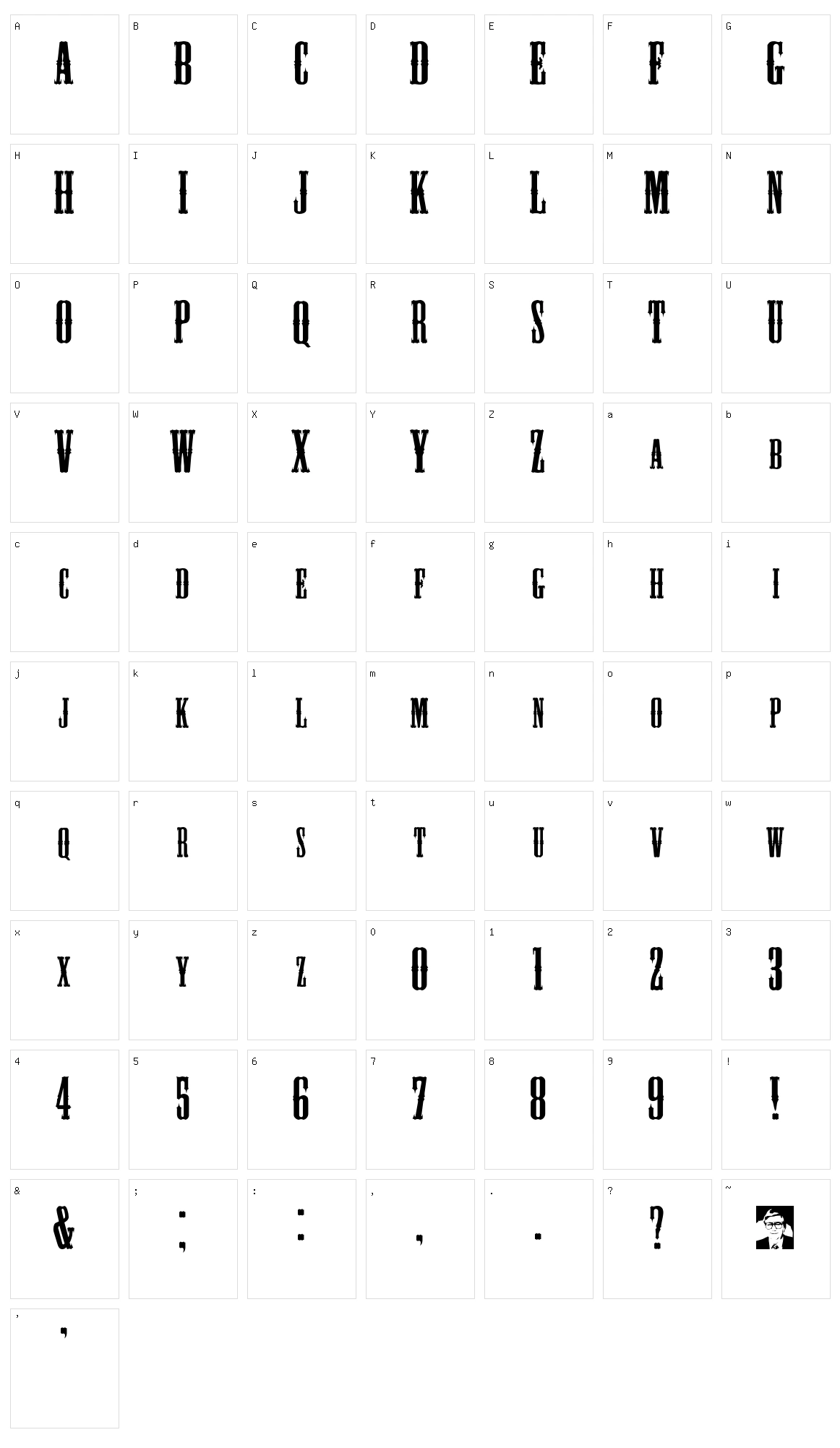
The free font Black Hawk is carefully designed by John Singer, showcasing a thoughtful balance of creativity and usability and falls under the Western font style. When you download the ZIP file, it contains only 23.23 KB of font files, making it lightweight and quick to download. Please review the license details below to understand permitted usage and distribution rights. If license information is not available, we recommend using this font for personal projects only or contacting the author directly for commercial usage permissions.